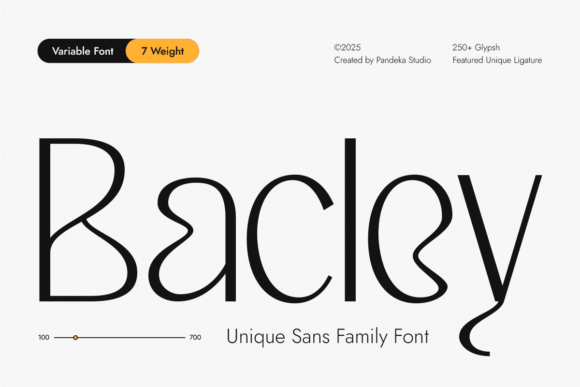
Bacley Font: A Modern Sans-Serif Font Family for Creative Expression
In the world of typography, fonts play a crucial role in conveying messages, expressing creativity, and building brand identities. With the ever-evolving landscape of design, the demand for modern and versatile fonts has increased significantly. One such font that has gained attention in recent times is Bacley, a modern sans-serif font family that fuses minimalist structure with experimental style.
Introducing Bacley Font
Bacley is a contemporary sans-serif font family designed to cater to the diverse needs of modern creatives. This font family comprises 7 font styles, including Thin, Extra Light, Light, Regular, Medium, Semi Bold, and Bold. This range of weights makes Bacley an ideal choice for both display and text applications, offering versatility and flexibility across various design projects.
Key Features of Bacley Font
- 7 Font Styles: Bacley offers a range of 7 font styles, from Thin to Bold, allowing designers to experiment with different weights and styles.
- Clean Geometry: Bacley preserves clean geometry and elegant uniqueness across all weights, making it perfect for branding, editorial, web, and packaging design.
- Distinctive Ligatures: Bacley features distinctive ligatures that add a touch of personality to the font, making it stand out from other sans-serif fonts.
- Stylistic Alternates: The font offers stylistic alternates, providing designers with more creative options and flexibility.
The Unique Balance of Bacley Font
What sets Bacley apart from other sans-serif fonts is its smooth balance between aesthetic simplicity and quirky character. The font strikes a perfect balance between being bold and elegant, making it an excellent choice for modern creatives. Bacley’s unique character is achieved through its distinctive ligatures and stylistic alternates, which add a touch of personality to the font.
Design Applications of Bacley Font
Bacley’s versatility makes it suitable for a wide range of design applications, including:
- Branding: Bacley’s clean geometry and elegant uniqueness make it perfect for branding projects, such as logos, business cards, and letterheads.
- Editorial Design: The font’s legibility and readability make it suitable for editorial design, including magazines, newspapers, and books.
- Web Design: Bacley’s modern and fresh feel makes it an excellent choice for web design, including website headers, buttons, and other UI elements.
- Packaging Design: The font’s versatility and range of weights make it suitable for packaging design, including product labels, posters, and brochures.
Why Choose Bacley Font?
With so many fonts available, why should designers choose Bacley? Here are a few reasons:
- Unique Character: Bacley’s distinctive ligatures and stylistic alternates give it a unique character that sets it apart from other sans-serif fonts.
- Versatility: The font’s range of weights and styles make it suitable for a wide range of design applications.
- Legibility: Bacley’s clean geometry and elegant uniqueness ensure excellent legibility and readability.
- Modern Feel: The font’s modern and fresh feel makes it perfect for contemporary design projects.
In conclusion, Bacley font is a modern sans-serif font family that offers a unique blend of minimalist structure and experimental style. With its range of 7 font styles, clean geometry, distinctive ligatures, and stylistic alternates, Bacley is perfect for modern creatives who want their typography to feel bold, fresh, and functional without being overly complex. Whether you’re working on branding, editorial, web, or packaging design, Bacley font is an excellent choice.